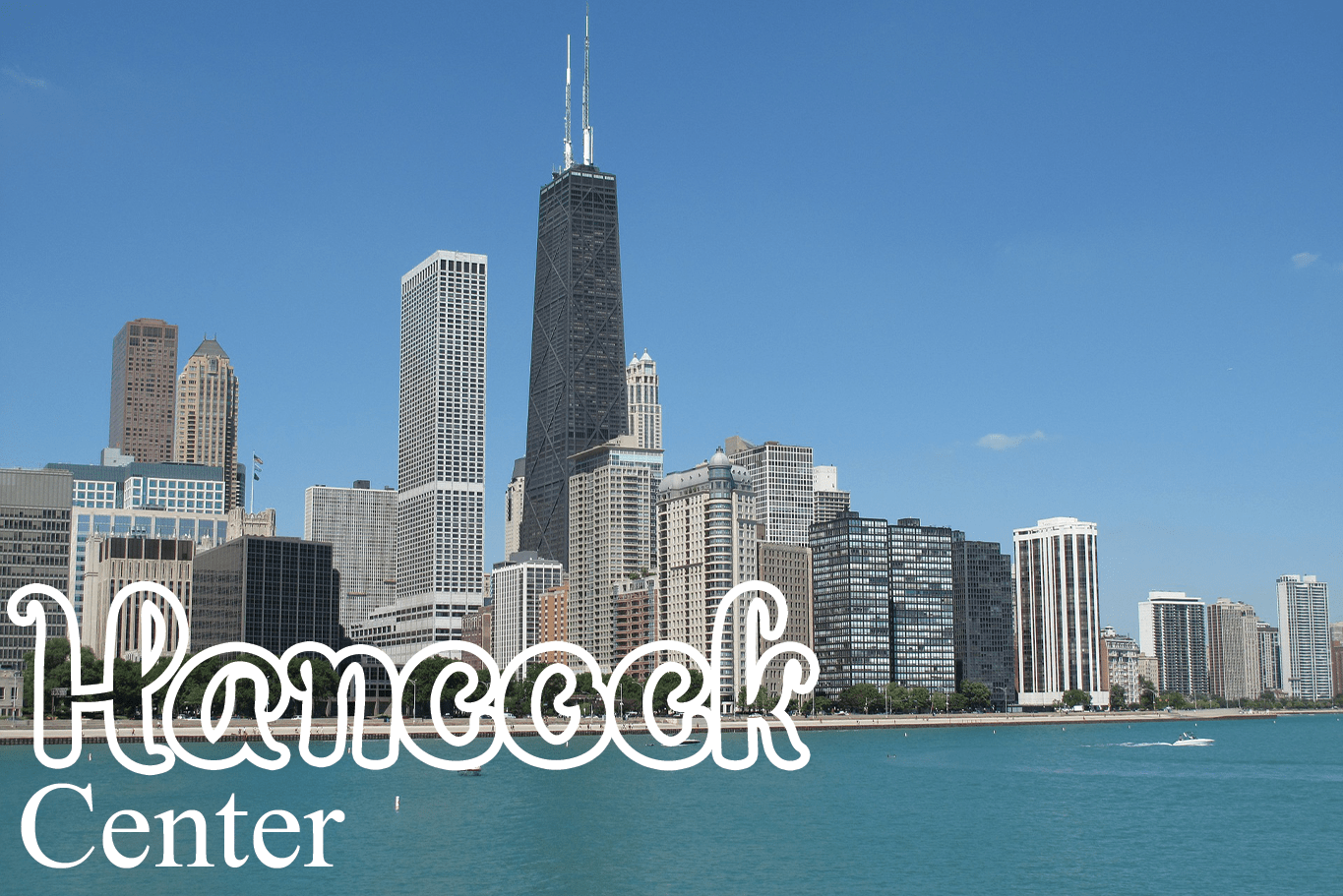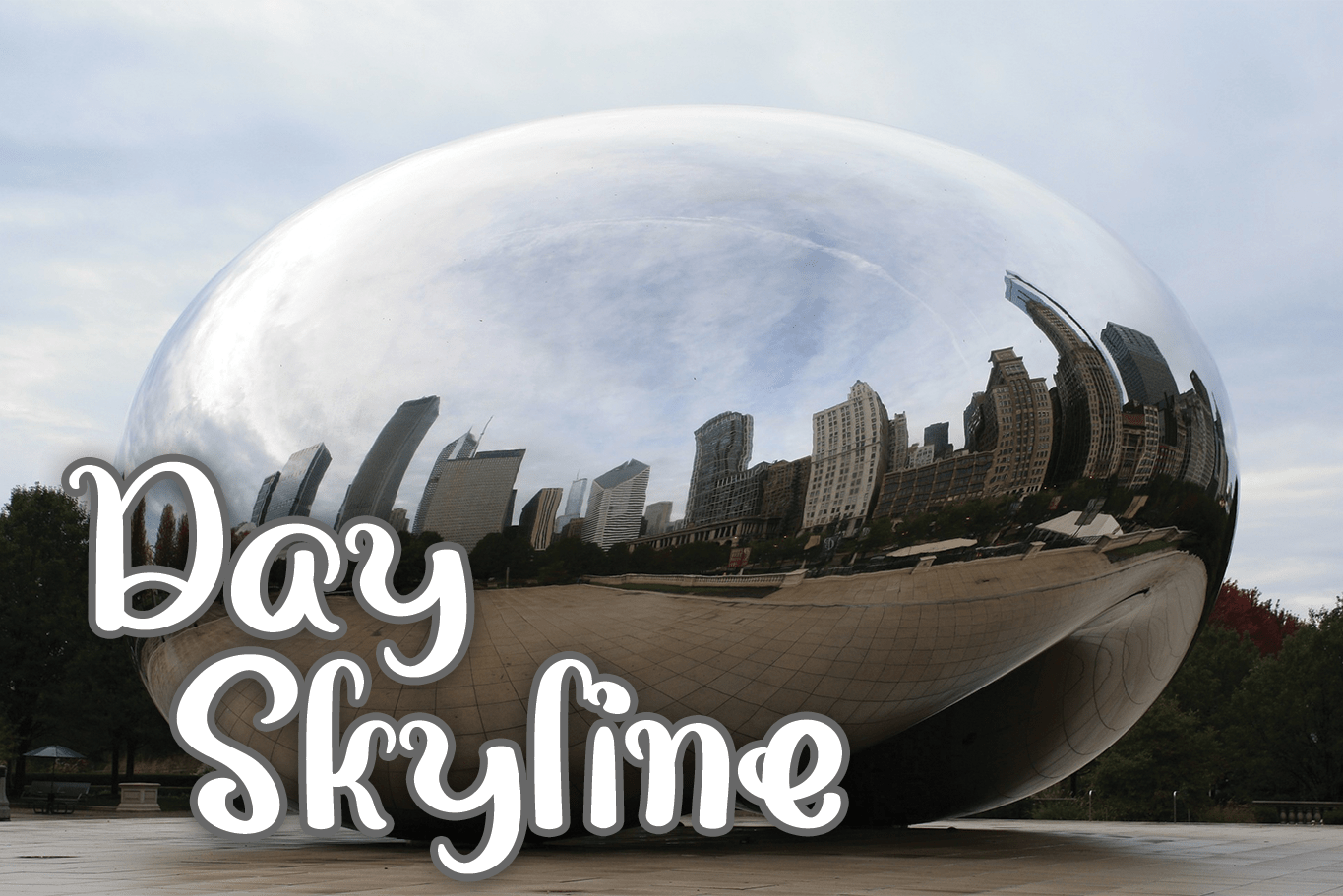
Chicago Script Font
This is a cute and chic script font. It embodies playfulness and authenticity and is the perfect choice for any project that requires a joyful touch.